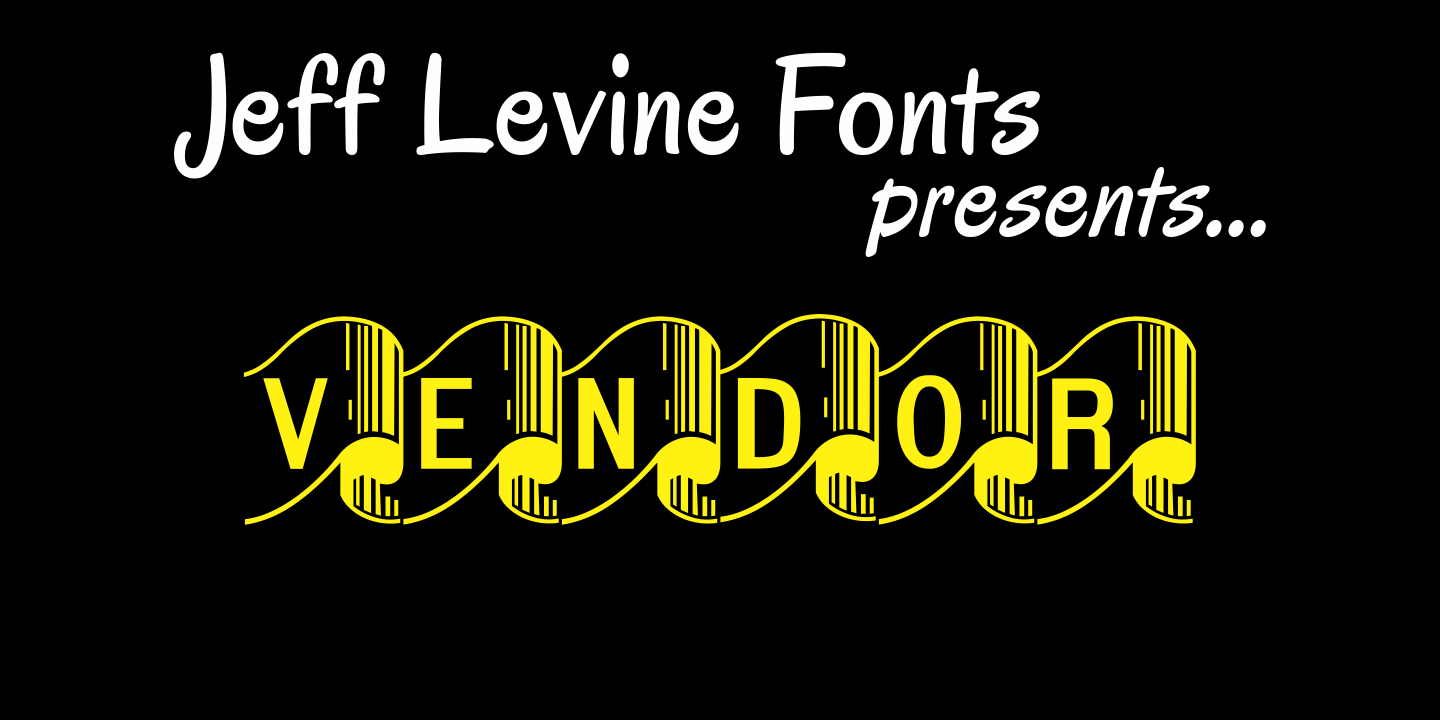
Vendor
Vendor JNL is Jeff Levine's take on the popular ribbon font of the Victorian Era, but using a vertical type (Trade Journal JNL) rather than skewed letters. End caps for the ribbon can be found on the left and right parenthesis, and a blank panel is on the hyphen key. Limited character set.